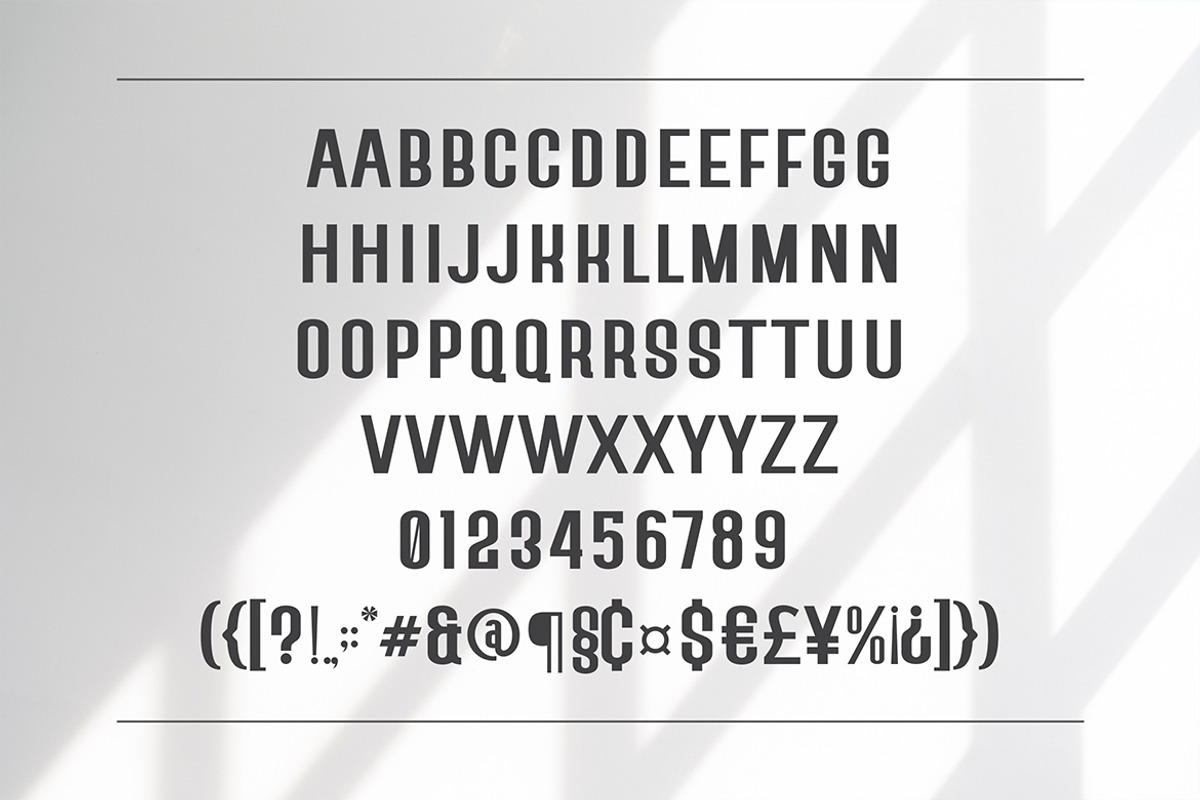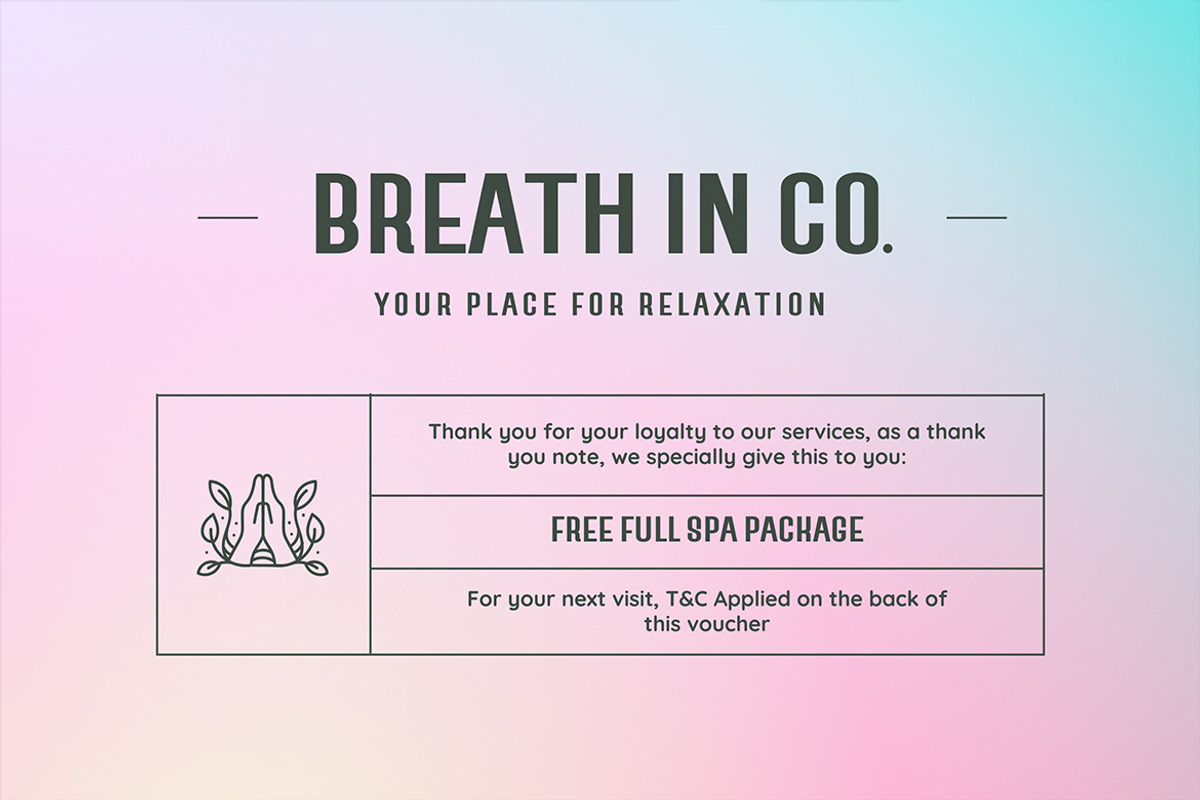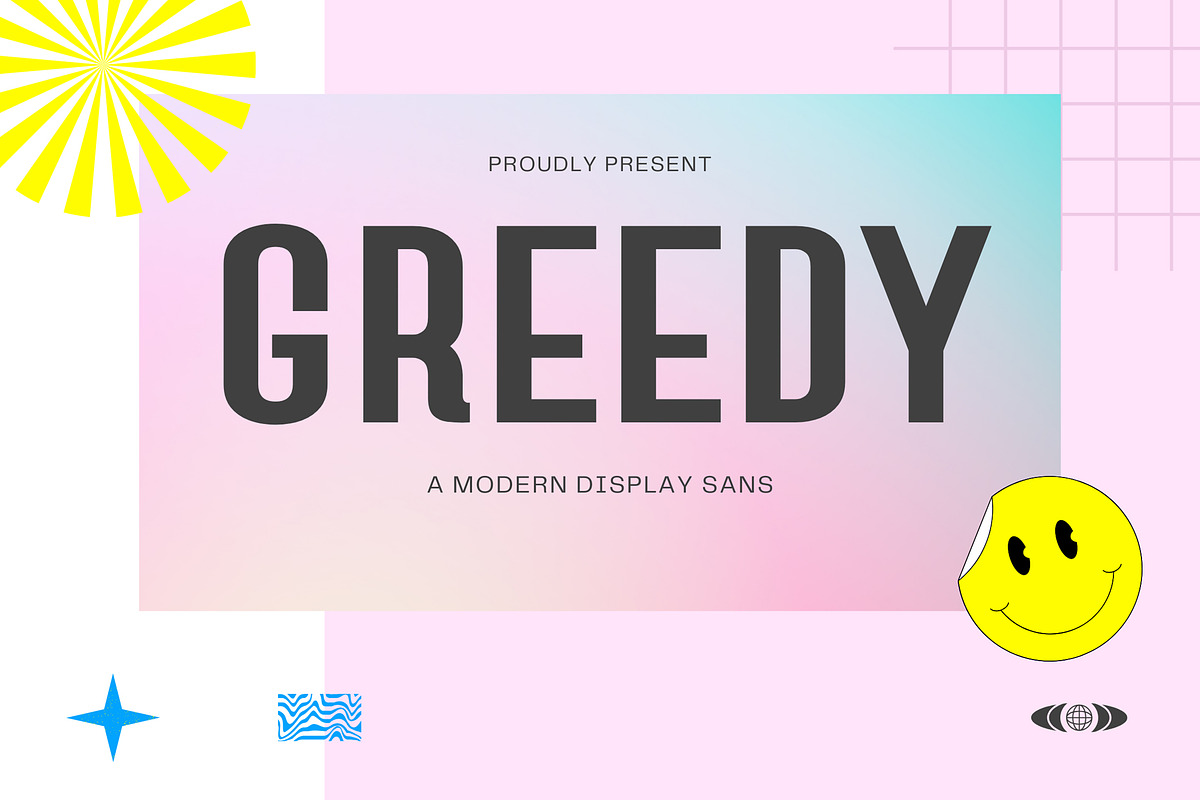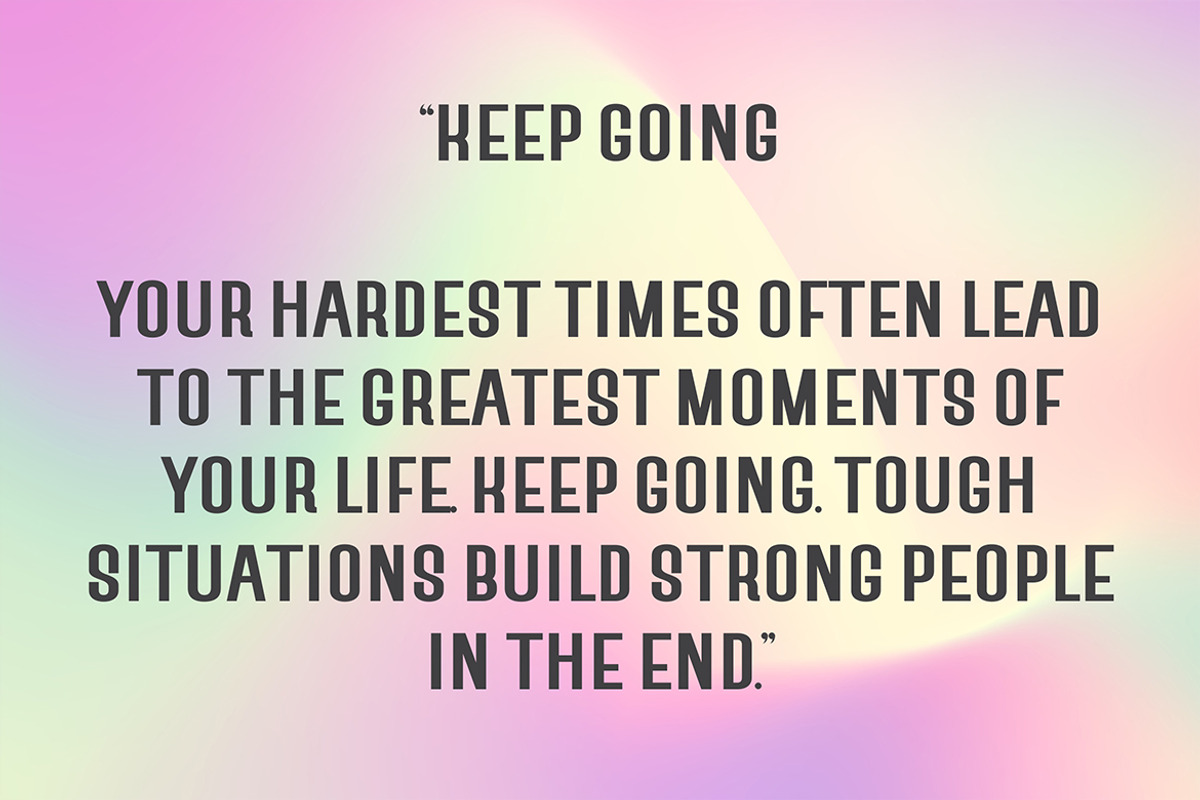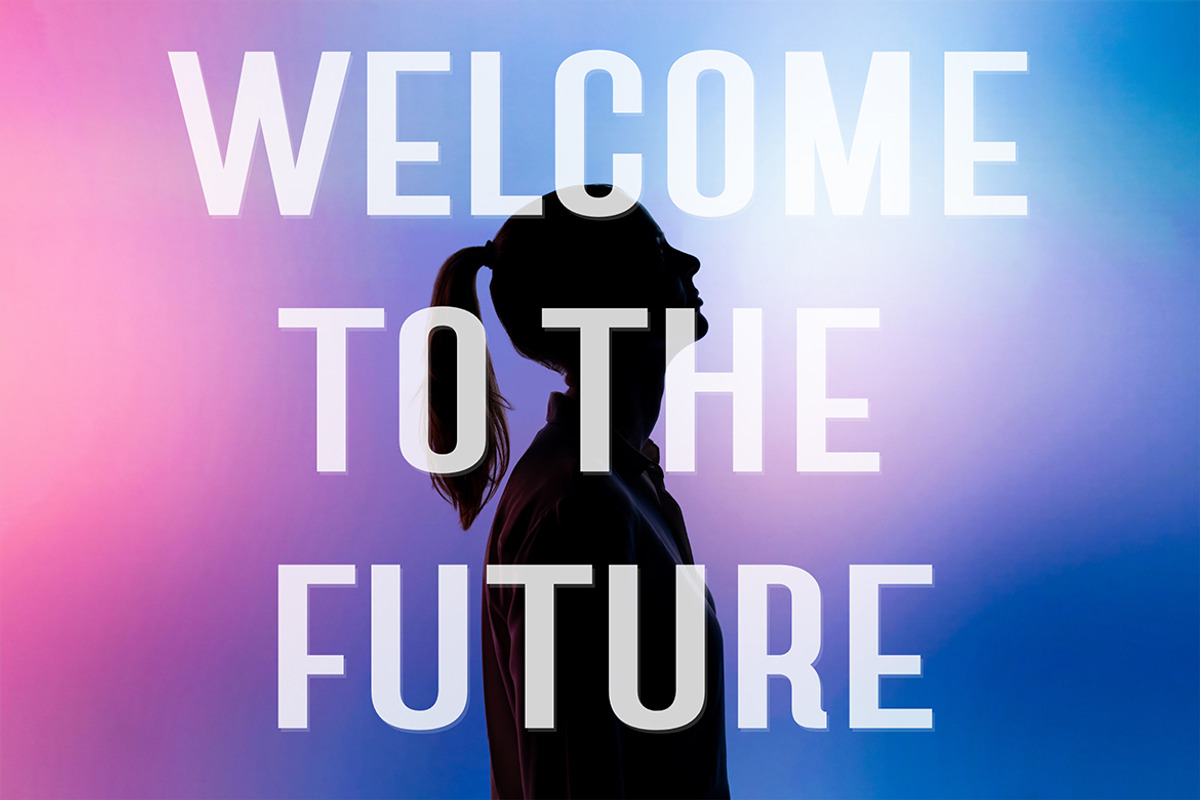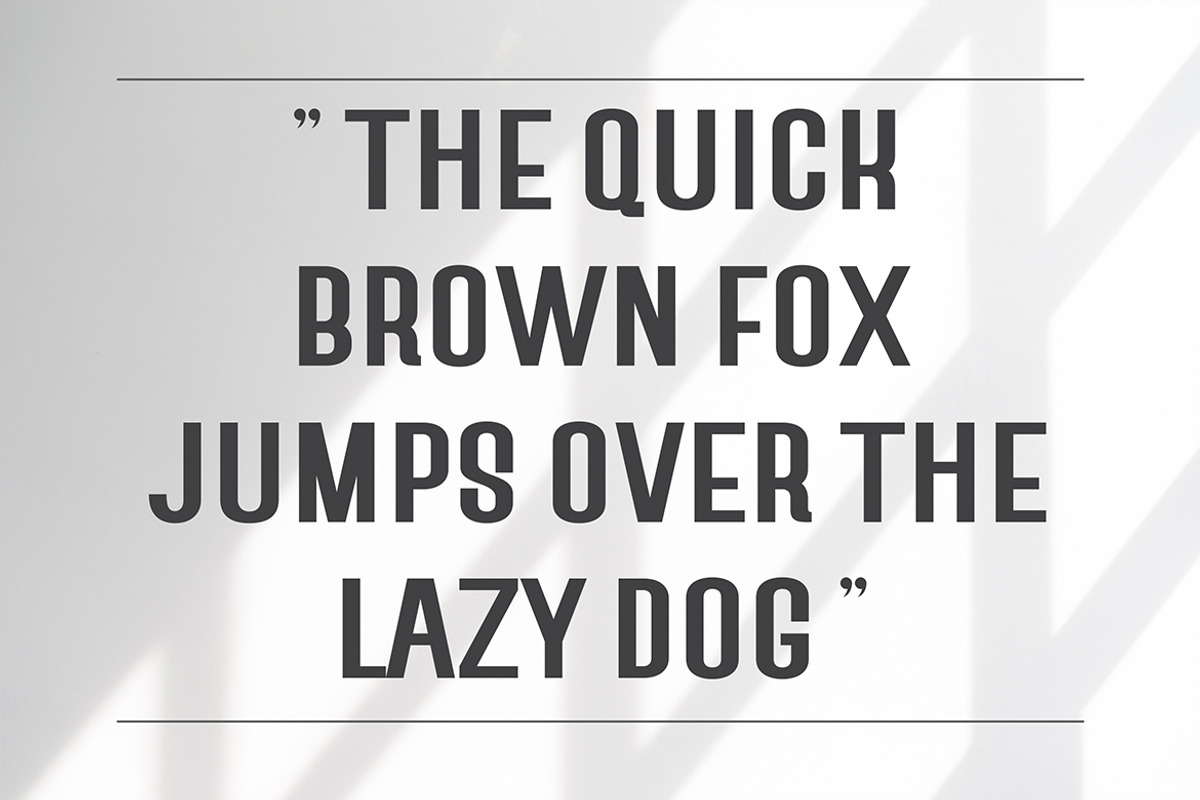
Greedy | Modern Sans
Introducing Greedy - Modern Sans. Greedy is a modern and simple font with more unique ligatures, best used as a display for headings, logos, branding, magazines, product packaging and invitations.